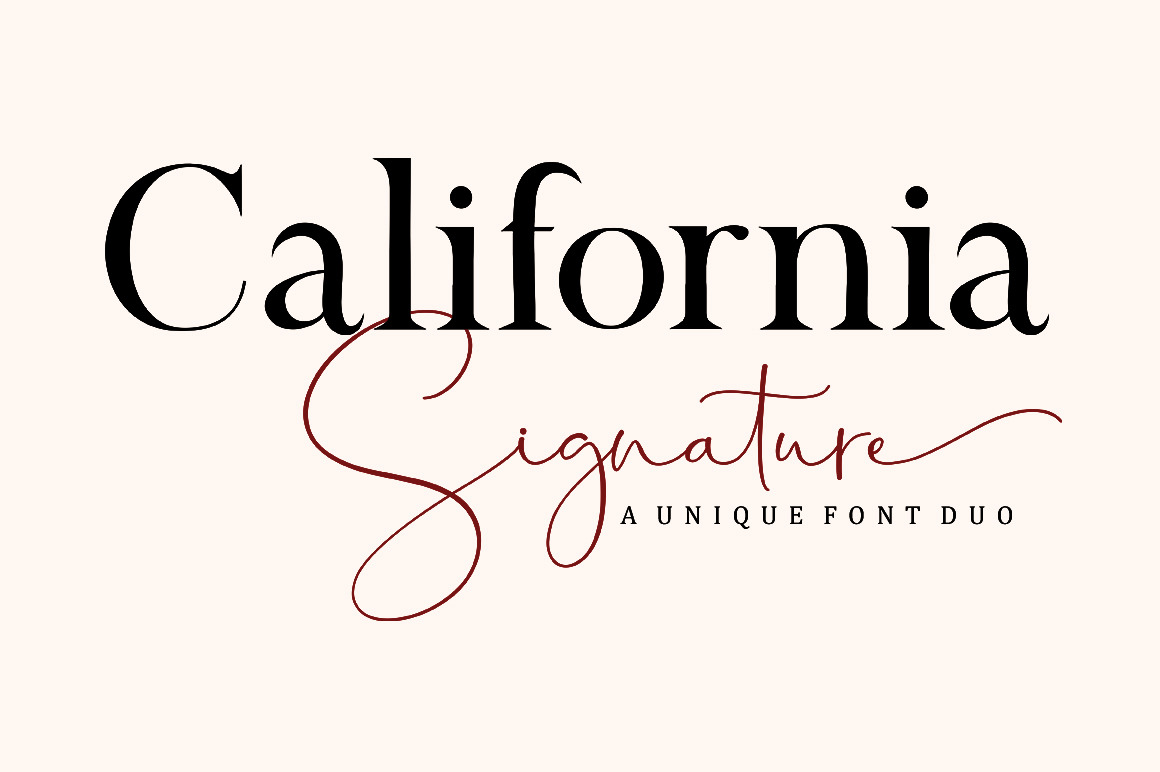
California Signature Font Duo
California Signature is the perfect blend of Luxury and Unique. California Signature is a set of seven modern fonts: upper and lowercase serifs and stylized script. The subtle curves of the serifs create a feminine feel. California Signature is perfect for logos, social media posts, invitations, and many other projects. It also comes with multilingual support.
• California Signature Serif Regular
• California Signature Script
• Thin and realistic signature font containing 24+ ligatures and substitutes, lowercase, uppercase, all punctuation & numbers.